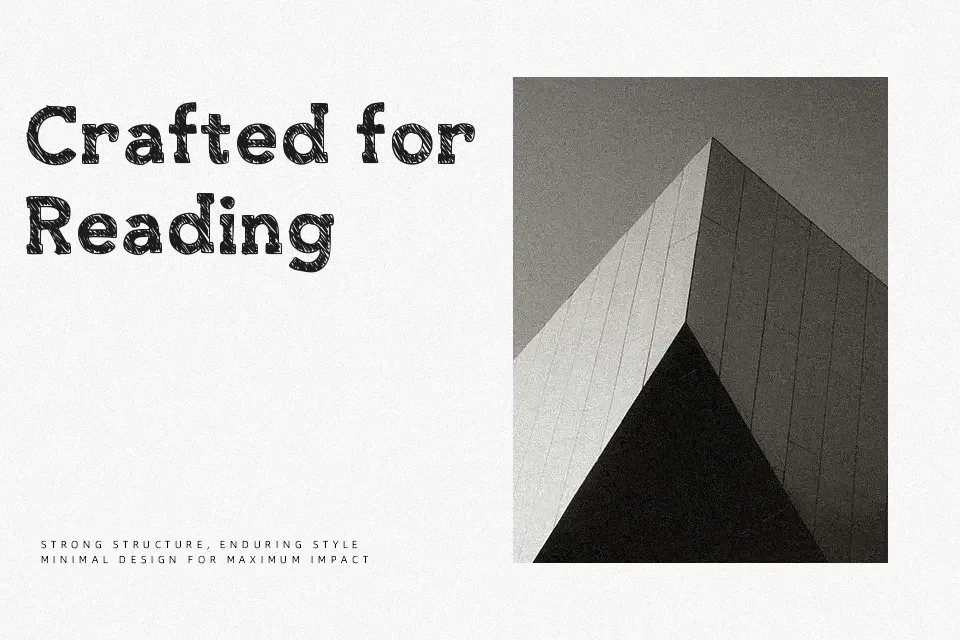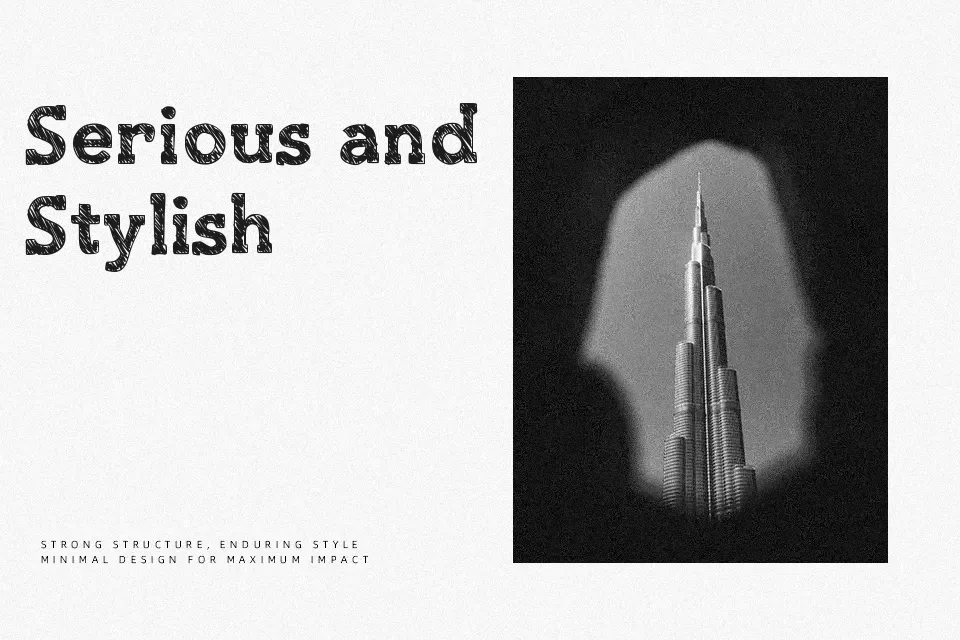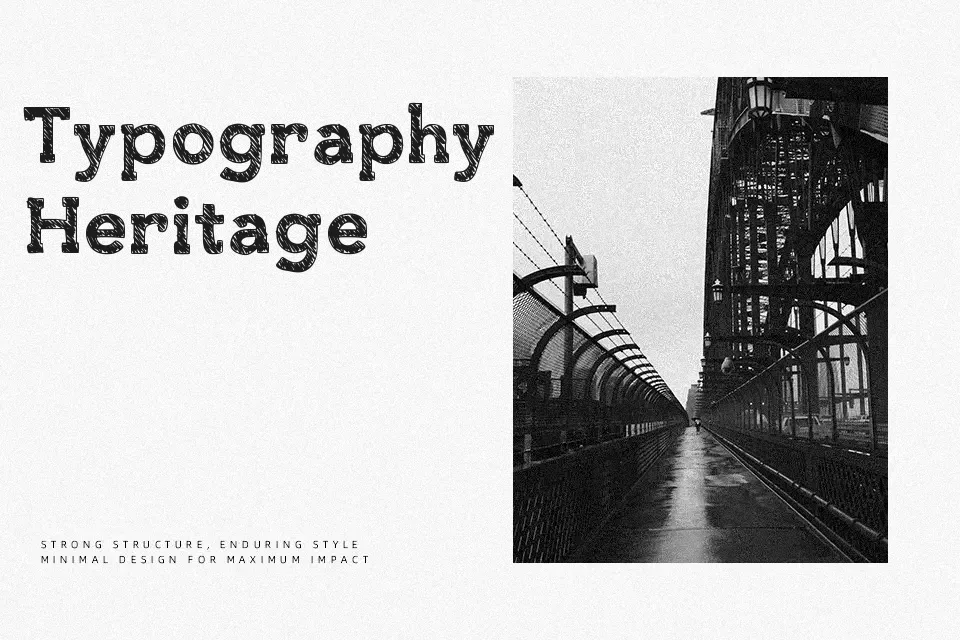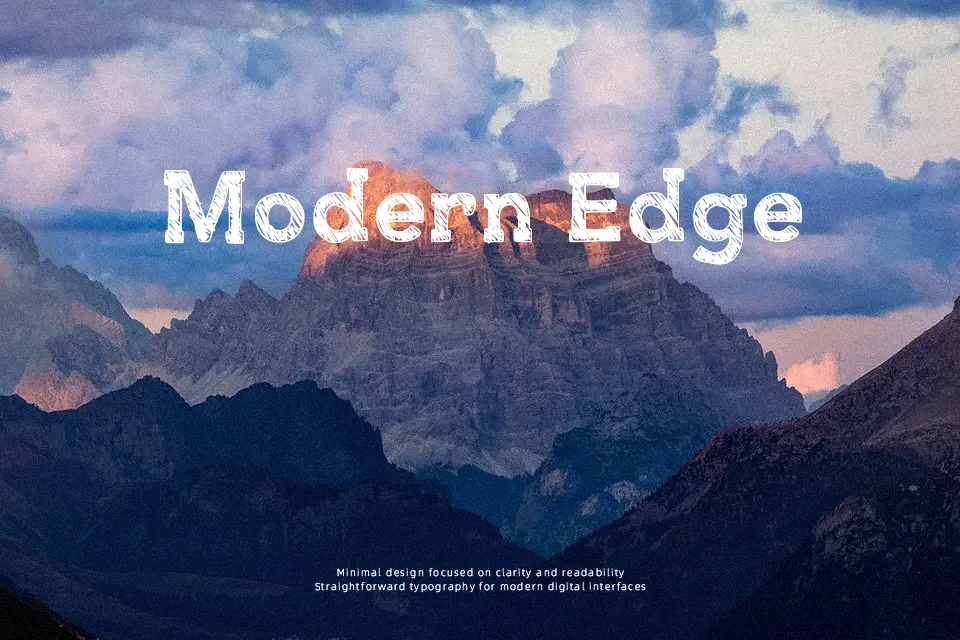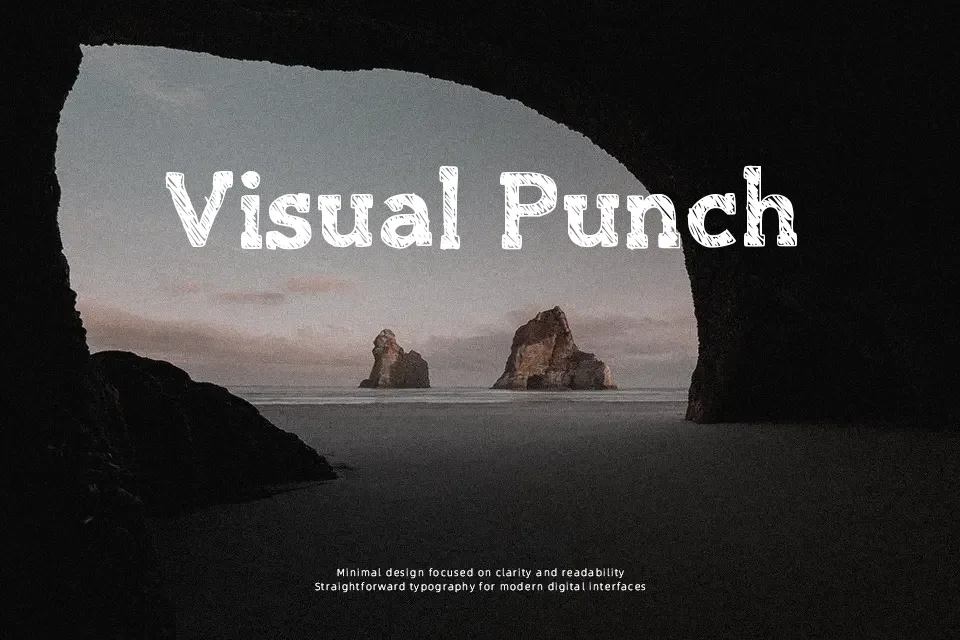
Slab Thing Font
Slab Thing Font uses broad, weighty letterforms, slab-like serifs, and a hand-drawn textured fill that gives each glyph a rough display character. Its proportions appear sturdy rather than refined, while the bold strokes create strong contrast against simple backgrounds. The spacing helps the letters hold together in large headlines, although the internal texture can make smaller settings feel busy. It works well for informal posters, labels, and graphic-led titles that need a deliberately handmade edge. For practical use, keep the type large and give it room to breathe; it is less comfortable for extended reading or compact supporting copy.
Best For: music event posters,casual product packaging,apparel graphics,logo headlines
Perfect for headline, logo, and packaging, with a bold and decorative style.